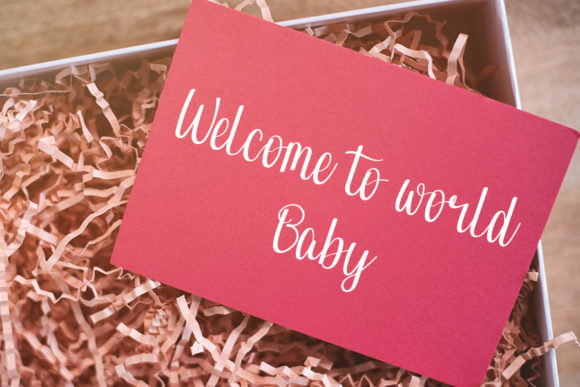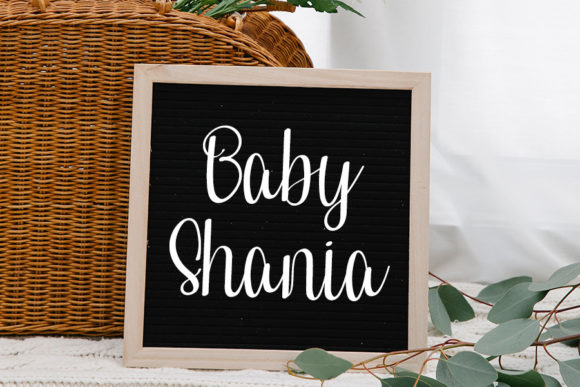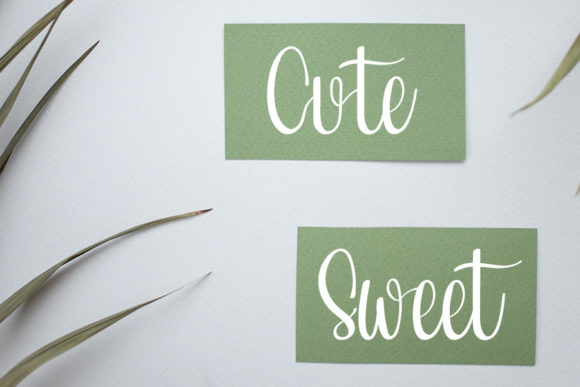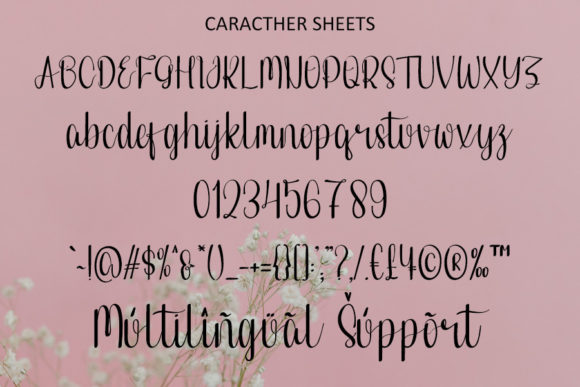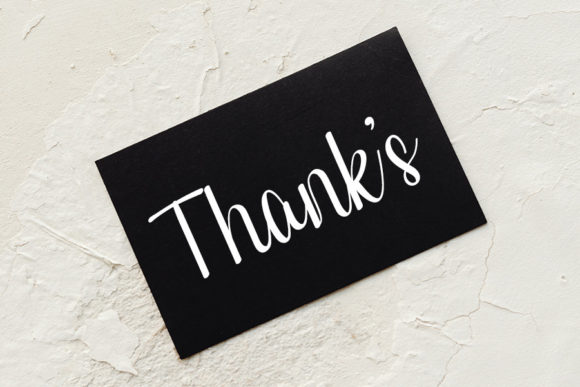
The Perfect Script for Celebrating New Life
There’s something special about creating a custom invitation for a baby shower – it’s a moment to capture the joy and excitement of a new family member on the way. You want the invitation to reflect the love and anticipation that comes with this special occasion. That’s where the perfect font comes in – and we’re excited to introduce you to the Baby Shower Font, a trendy and chic handwritten font that’s sure to add a touch of elegance to your design.
This versatile font is designed to bring a contemporary atmosphere to your projects, with a perfect balance of form and function. Whether you’re designing invitations, cards, or social media graphics, the Baby Shower Font is the perfect choice to add a personal touch. As a designer, you’ll appreciate its impeccable form and varied lettering, making it a valuable addition to your toolkit.
- Unique Characteristics: Whimsical and playful design elements, including hand-drawn illustrations and intricate details, making it perfect for baby-themed projects.
- Font Style: Script, cursive, and handwritten styles available, allowing for versatile use in invitations, greeting cards, and other creative projects.
Review of Baby Shower Font
Overall, I’d say Baby Shower Font is a cute and playful script font, perfect for any baby-themed design project ✨. It’s a great choice if you’re looking for a fun and lighthearted vibe. The font includes a variety of styles and ornaments, which can be used to add some extra flair to your design.
- Includes a range of styles and ornaments
- Perfect for baby-themed design projects
- Cute and playful script font
However, there are some limitations to keep in mind ⚠️. The font may not be the best choice for formal or professional designs, as it can come across as a bit too childish. Additionally, the font may not be as versatile as some other script fonts on the market, and it may not work well with all types of text.
- May not be suitable for formal or professional designs
- Not as versatile as some other script fonts
- May not work well with all types of text
Overall, I’d give Baby Shower Font 3.5 out of 5 stars. It’s a great choice for baby-themed designs, but it may not be the best choice for more formal or complex projects.
Use the Baby Shower Font for baby-themed projects, such as:
- Baby shower invitations and decorations.
- Baby gift cards and gift tags.
- Personalized baby blankets and onesies.
Alternatives to Baby Shower Font for Designers
Great Vibes is a beautiful, elegant script font perfect for creating a warm and inviting atmosphere. It is ideal for use in wedding invitations, baby announcements, and other special occasion designs.
Compared to Baby Shower Font, Great Vibes has a more refined and sophisticated look, making it suitable for high-end designs. While Baby Shower Font is more playful and casual, Great Vibes exudes a sense of luxury and sophistication.
Lobster is a fun, cursive font that is perfect for adding a touch of whimsy to your designs. It is great for use in headings, titles, and other text elements where you want to create a sense of playfulness.